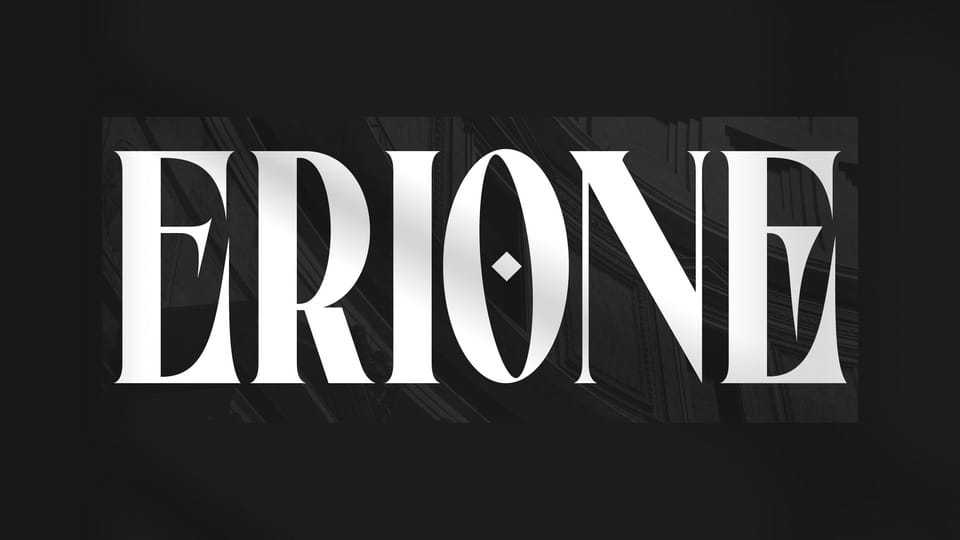
Download Erione font, a modern serif typeface with a bold, strong, and confident character, designed to deliver a powerful, professional, and premium look.
Designer: Rvandtype Studio